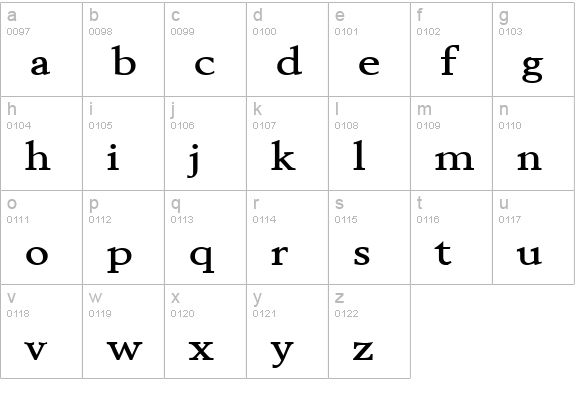
Revive 8 Wide Bold Font Details
Revive 8 Wide Bold is a strong, high-contrast, extended-width variant in the Revive typeface family \xE2\x80\x94 well suited to headlines, attention-grabbing titles, and strong calls-to-action.
Revive 8 Wide Bold font is a visually stunning typeface that effortlessly captures attention and demands to be noticed. Its bold and wide letterforms exude a sense of strength and confidence, making it perfect for headlines, titles, and other impactful design elements. The impeccable craftsmanship of Revive 8 Wide Bold font is evident in every curve and contour. The thick strokes and generous spacing create a strong presence on any medium, whether it's print or digital. This font is designed to make a lasting impression and leave a memorable mark on your audience. What sets Revive 8 Wide Bold font apart is not only its striking aesthetics but also its versatility. It seamlessly adapts to various design styles, from modern and minimalistic to bold and edgy. This flexibility makes it an ideal choice for a wide range of creative projects, including branding, advertising, packaging, and more. But what truly makes Revive 8 Wide Bold font a standout is that it is available for free! Yes, you read that right. This exceptional font can be downloaded at absolutely no cost at FontsMarket.com, a leading platform for high-quality fonts. With just a few clicks, you can bring this remarkable typeface to life and add a touch of sophistication to your designs without spending a dime. Whether you're a professional designer or a passionate hobbyist, Revive 8 Wide Bold font is a must-have in your typographic arsenal. Its bold and wide design will elevate your projects and make them stand out from the crowd. So don't miss the opportunity to add this incredible font to your collection. Download Revive 8 Wide Bold font today and let your creativity soar.